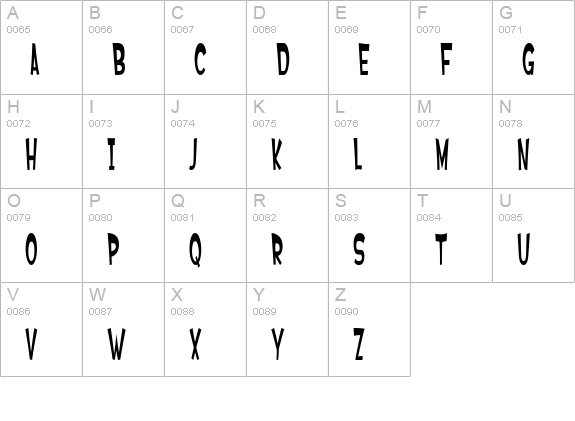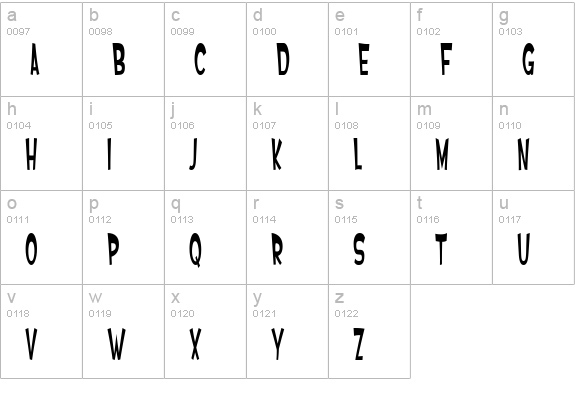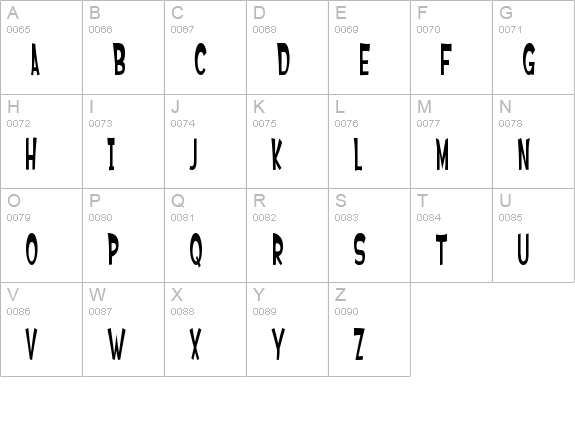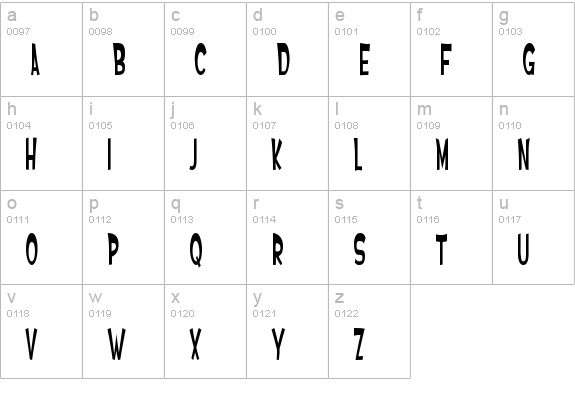
SF Ferretopia Font Details
Introducing SF Ferretopia, a captivating and versatile font that effortlessly combines modernity with a touch of whimsical charm. Designed to inspire creativity and add a unique flair to any design project, SF Ferretopia boasts a wide range of characters and styles that will surely captivate the imagination. This font's free-spirited nature is embodied in its curvaceous letterforms and playful embellishments, making it a perfect choice for those seeking to infuse their designs with a sense of joy and adventure. Whether used in headlines, logos, posters, or any other creative endeavor, SF Ferretopia will undoubtedly leave a lasting impression. One of the most remarkable aspects of SF Ferretopia is not only its exceptional design but the fact that it is freely available to download at FontsMarket.com. This means that designers, creatives, and enthusiasts alike can enjoy the benefits of this extraordinary font without any cost or restrictions. With SF Ferretopia, the possibilities are truly endless, making it an invaluable resource for anyone looking to elevate their typographic designs. The versatility of SF Ferretopia is further showcased through its various weights and styles, allowing designers to effortlessly create a cohesive and visually engaging composition. From the delicate and elegant Thin weight to the bold and commanding Black weight, this font offers a wide spectrum of options to suit any design need. SF Ferretopia also boasts exceptional legibility, ensuring that your message is conveyed clearly and effectively. Its thoughtfully crafted letterforms and generous spacing make reading a breeze, whether in small or large sizes. So, why wait? Unleash your creativity and let SF Ferretopia guide you on a typographic journey like no other. Download this remarkable font for free at FontsMarket.com and embark on a design adventure that will leave a lasting impression. Whether you're a seasoned professional or a passionate novice, SF Ferretopia is here to ignite your imagination and revolutionize your design projects.